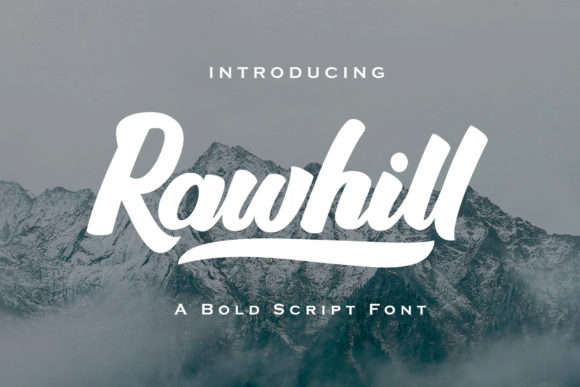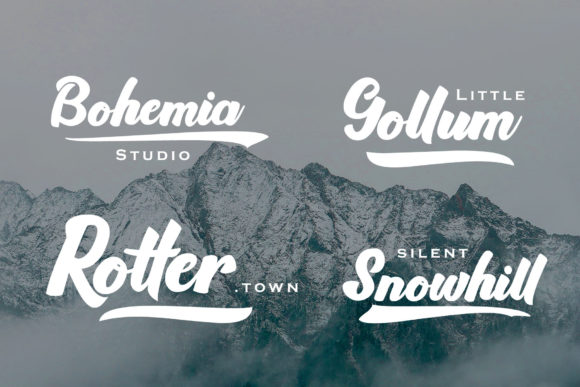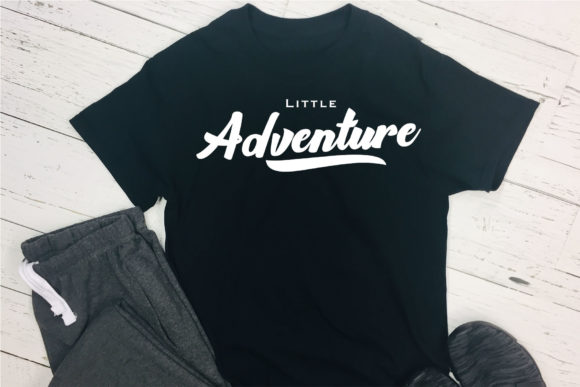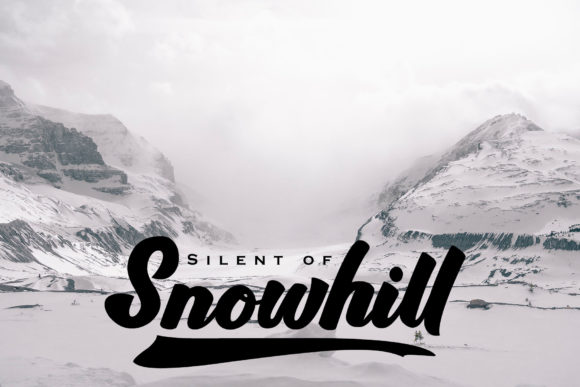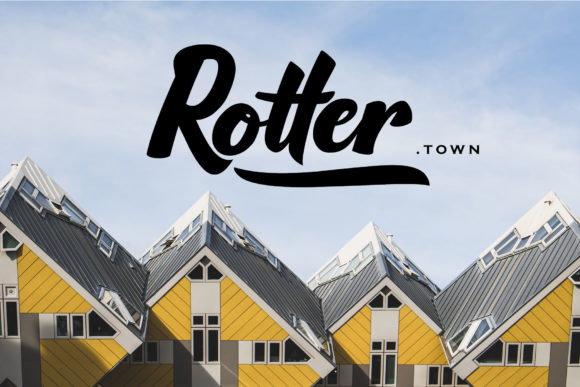
Rawhill Font
About Rawhill Font
Rawhill is a bold, clean and casual bold script font. It comes with extra attractive swashes, alternative characters and ligatures that will make your design stand out!